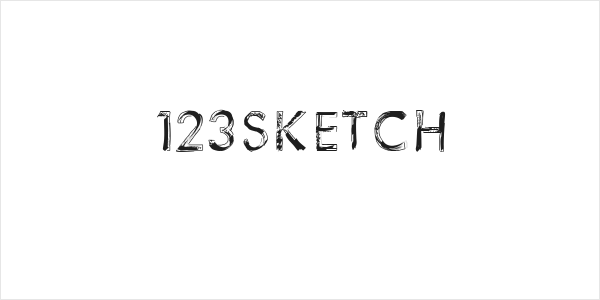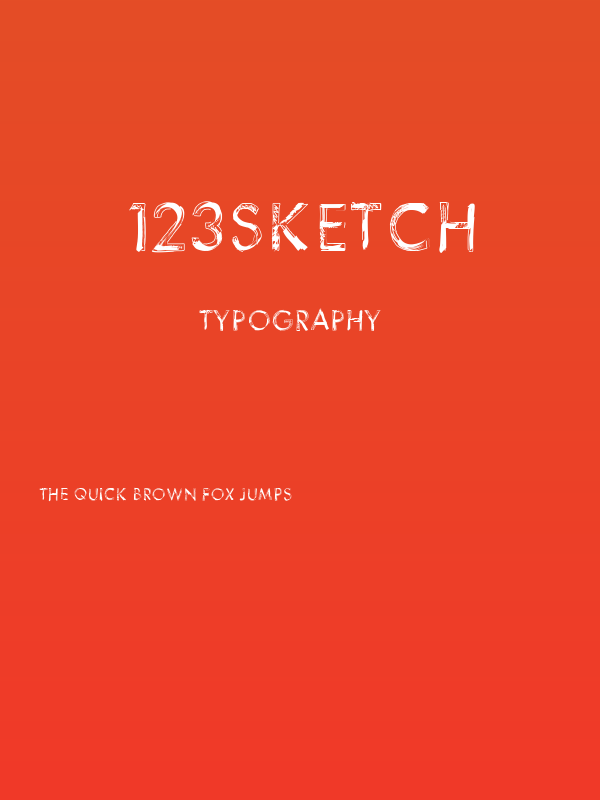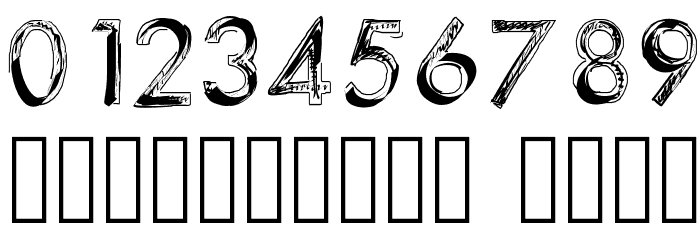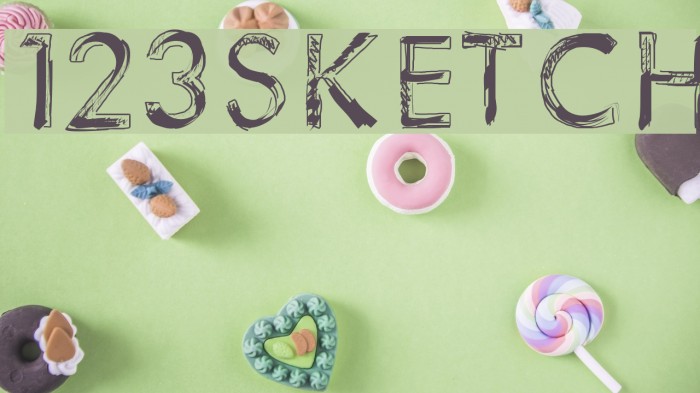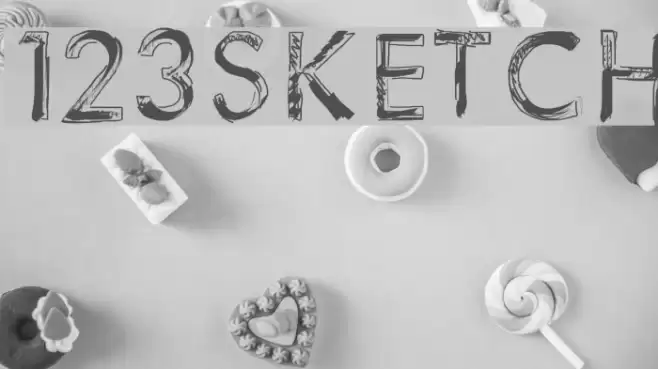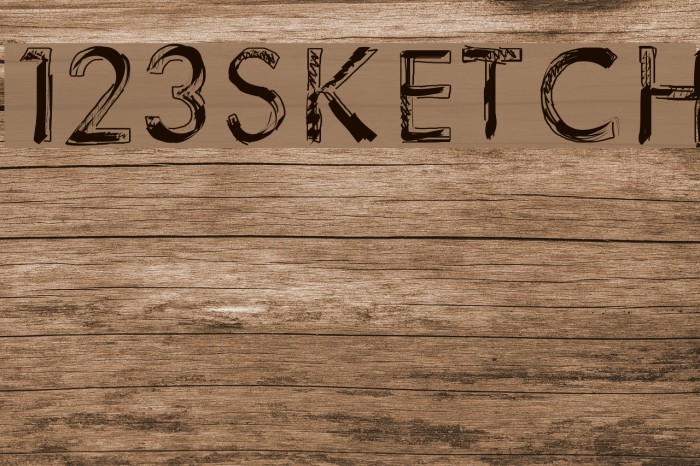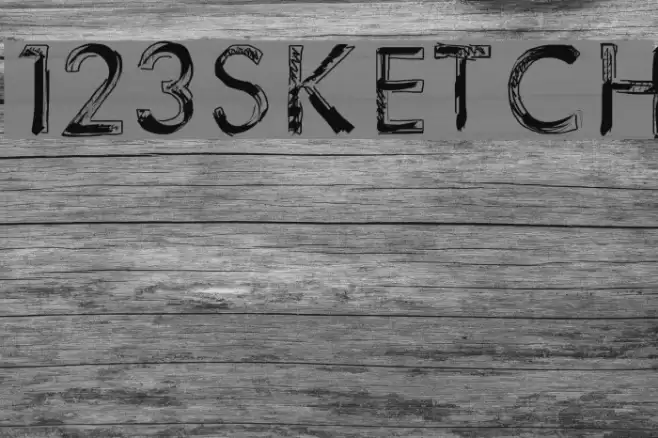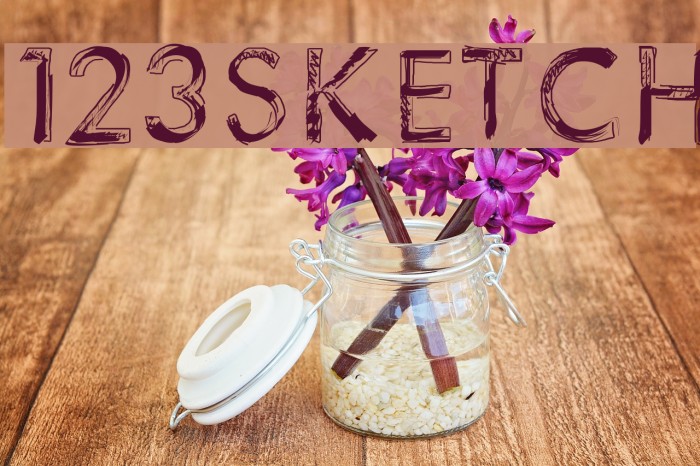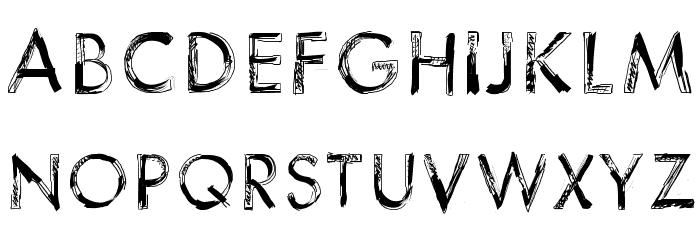
123Sketch Font
123Sketch Description
This font features a hand-drawn, sketch-like appearance that gives it a unique and artistic feel. The letters are characterized by uneven strokes and a textured look, reminiscent of pencil sketches. This style creates a sense of movement and dynamism, making it stand out in any design. The uppercase and lowercase letters maintain a consistent style, with numbers and special characters following the same sketchy aesthetic. The font's playful and informal nature makes it suitable for creative projects that require a personal touch.
| Overall Style | Artistic, Playful |
| Use Case | Headlines, Creative projects, Informal branding |
| Proposed Projects | Ideal for art projects, children's books, creative posters, and informal branding. |